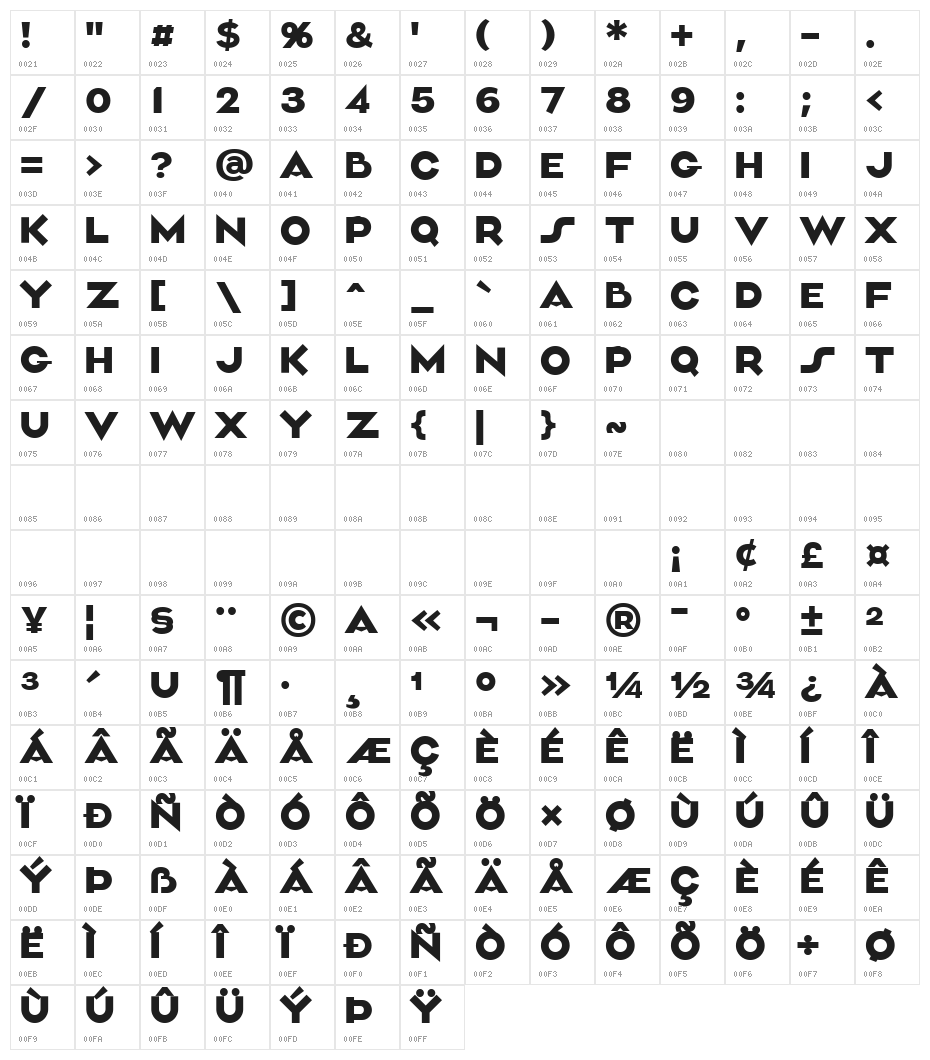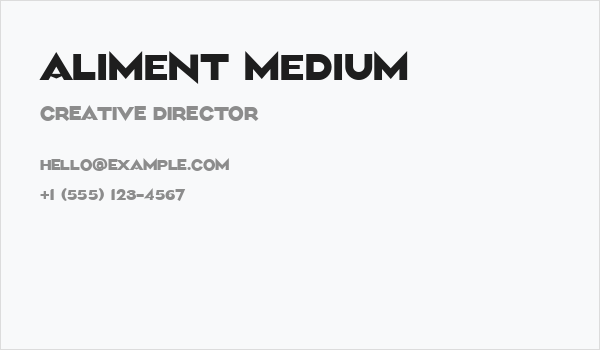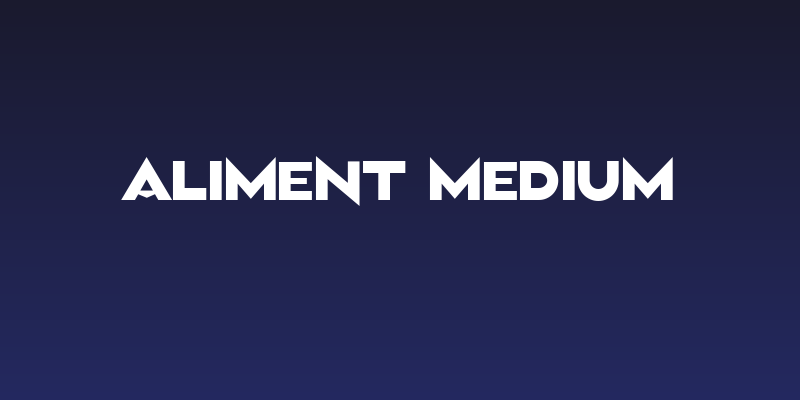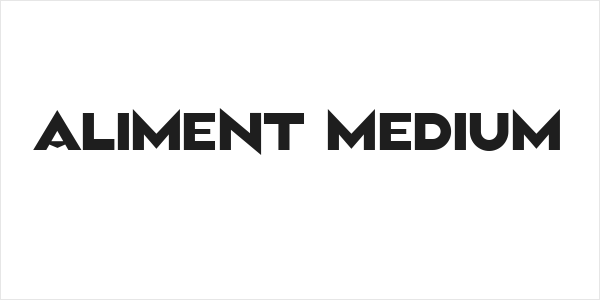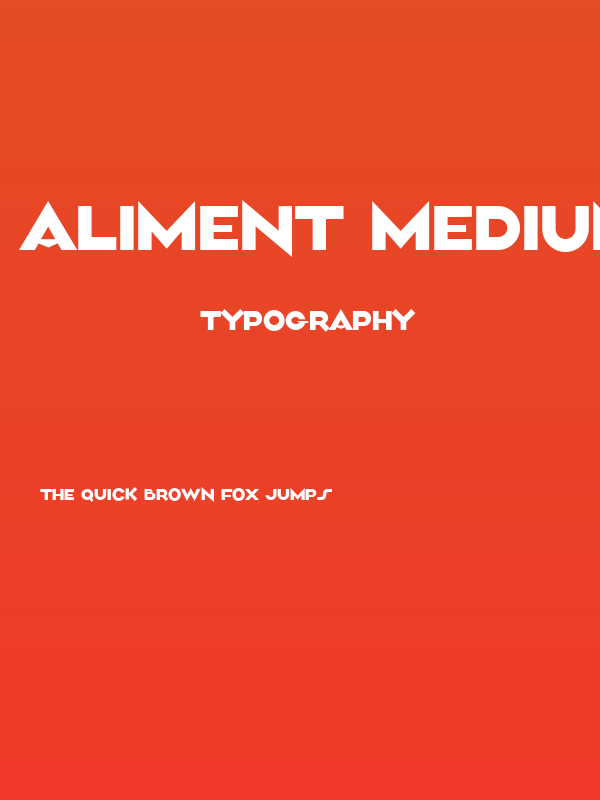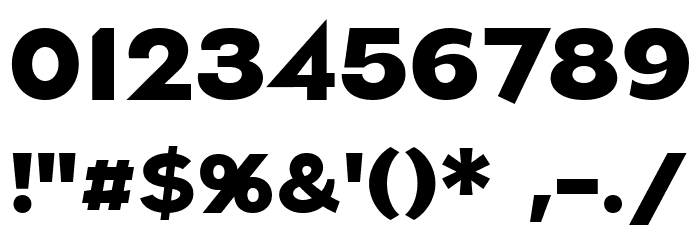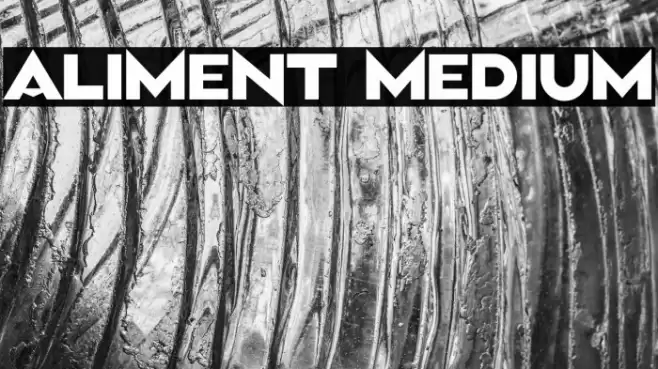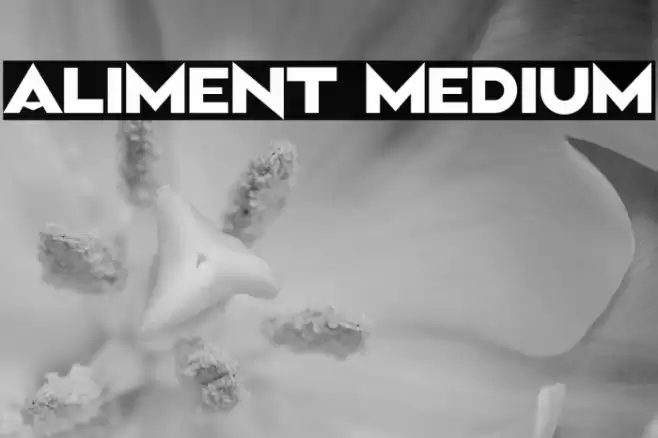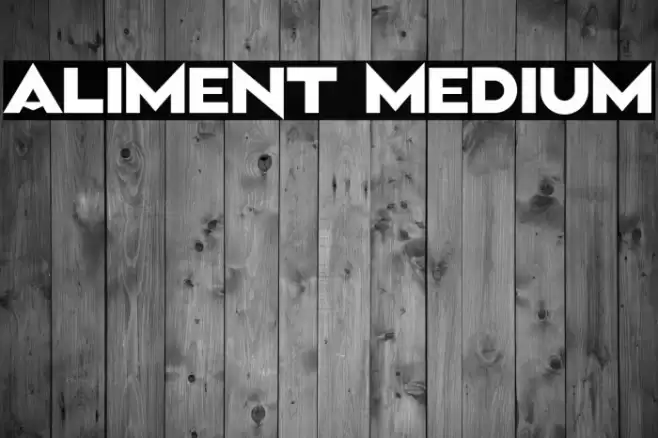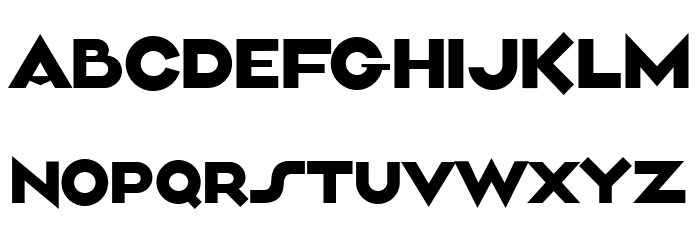
Aliment Medium Font
Aliment Medium Description
This font features a bold and geometric design with a modern aesthetic. The characters are crafted with sharp angles and clean lines, giving a sense of strength and precision. The uppercase letters are particularly striking, with a consistent height and width that create a uniform appearance. The lowercase letters maintain the boldness of the uppercase, ensuring readability and impact. Numbers are equally bold, designed to stand out in any context. Special characters are thoughtfully integrated, maintaining the overall geometric style. This font is ideal for making a strong visual statement.
| Use Case | Headlines, Logos, Branding |
| Proposed Projects | Ideal for branding, advertising, headlines, and any project requiring a strong visual impact. |